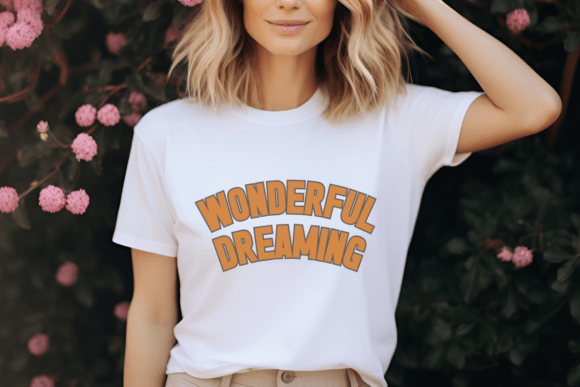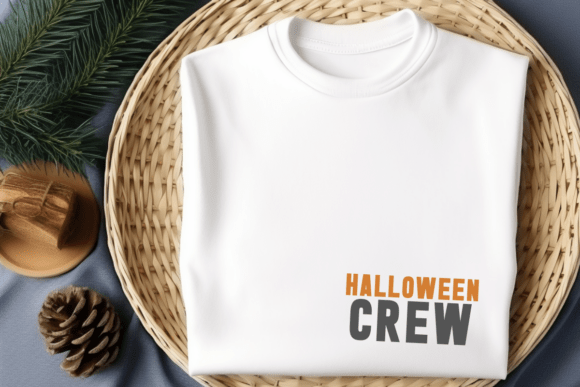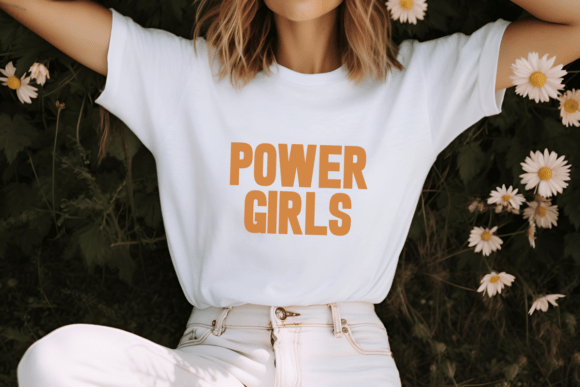
Introduction to Skelektons Spooky Font
Do you remember the thrill of designing a spooky Halloween-themed project, only to struggle with the perfect font? The one that screams ‘creepy’ without looking cheesy? We’ve all been there. But what if you could find a font that not only captures the essence of Halloween but also elevates your entire design to a new level? Enter Skelektons Spooky Font, a bold and powerful display font that’s sure to send shivers down the spines of your audience.
This high-quality font is designed to bring a strong and spooky vibe to your creative projects, making it a valuable resource for designers looking to create eye-catching Print On Demand (POD) creations, movie titles, and more.
Key Features of Skelektons Spooky Font
- Unique and creative design perfect for Halloween-themed projects or any spooky creative project.
- Includes a range of characters, including uppercase and lowercase letters, numbers, and special characters.
- Perfect for use in graphics, logos, and other design elements where a spooky and mysterious feel is desired.
Honest Review: Skelektons Spooky Font
I recently had the chance to work with the Skelektons Spooky Font, and I must say it’s a solid addition to any designer’s toolkit. ✨ The font is perfect for those spooky-themed creative projects, and its unique design makes it stand out from the crowd.
The Skelektons Spooky Font comes with a range of characters, including uppercase and lowercase letters, numbers, and symbols. It’s perfect for creating invitations, posters, and other spooky-themed materials.
Here are some of the key features:
- Unique, spooky design
- High-quality characters
- Perfect for spooky-themed creative projects
My only criticism is that the font may not be suitable for all design projects, particularly those that require a more formal or professional look. ⚠️ However, for those looking to create a spooky atmosphere, this font is a great choice.
Overall, I’m impressed with the Skelektons Spooky Font, and I’d highly recommend it to designers looking for a unique and high-quality design resource.
Tips for Getting the Most Out of Skelektons Spooky Font
Use the Skelektons Spooky Font in conjunction with a transparent background to create a spooky or eerie effect. Experiment with different font sizes and colors to add depth and interest to your design. You can also use the font as a design element in its own right, rather than just as text.